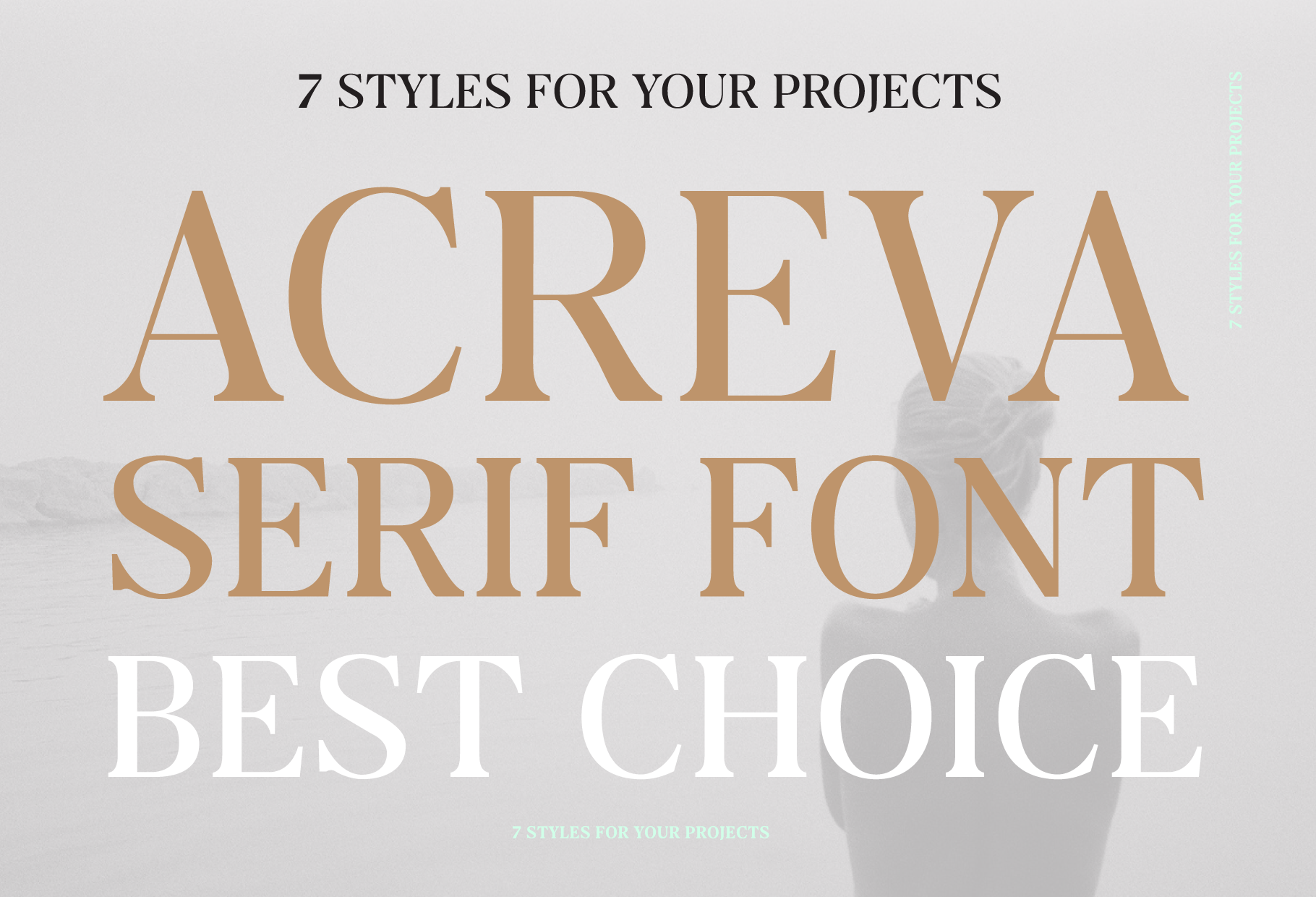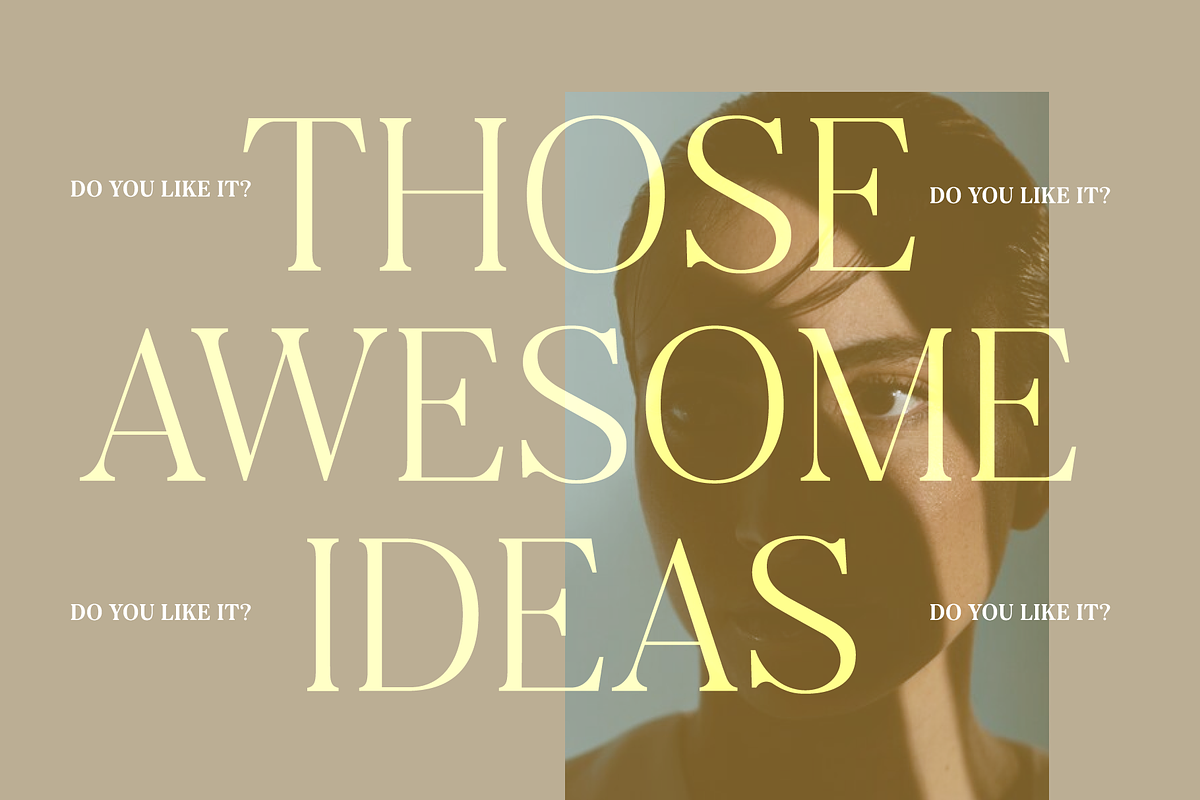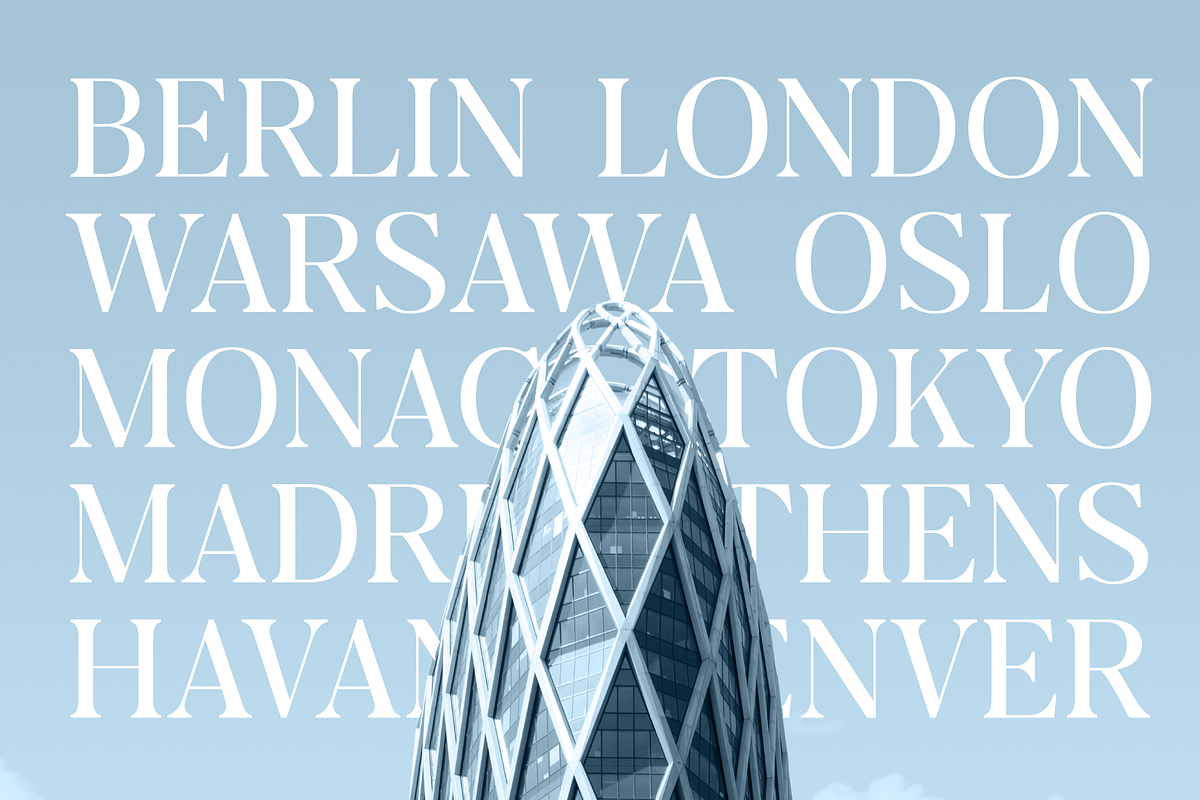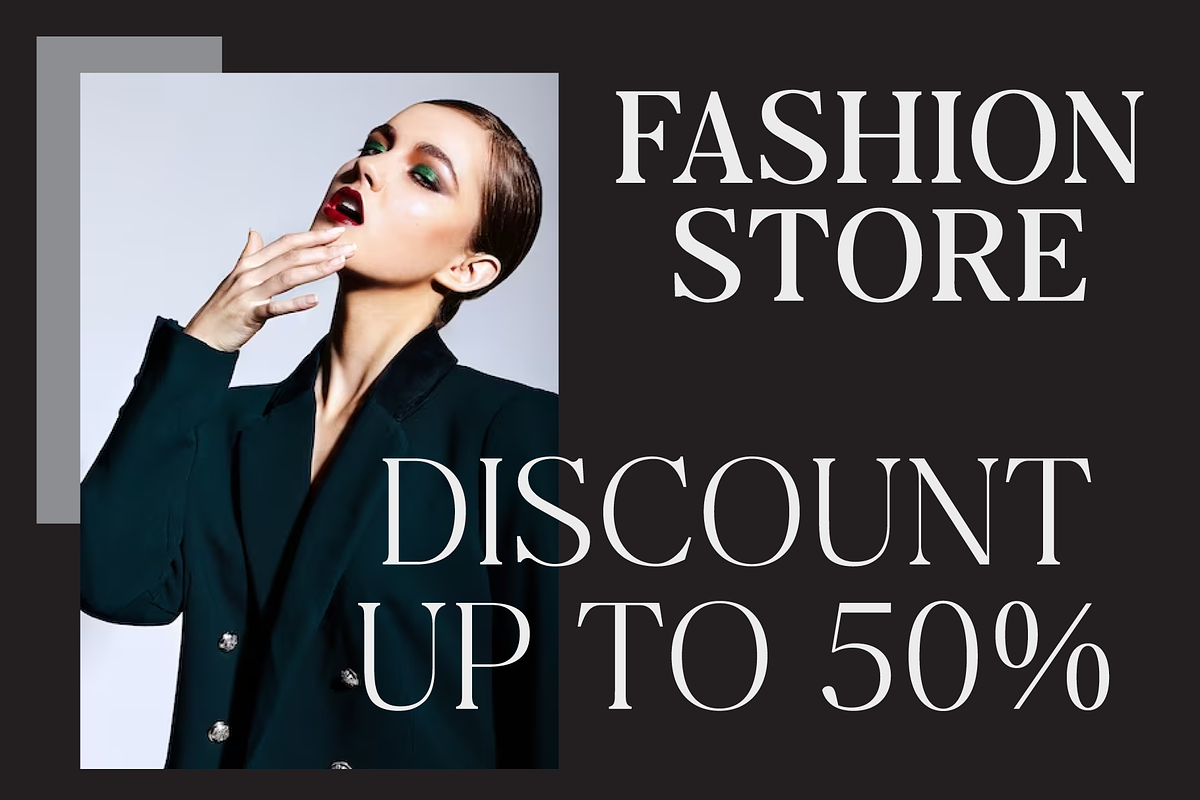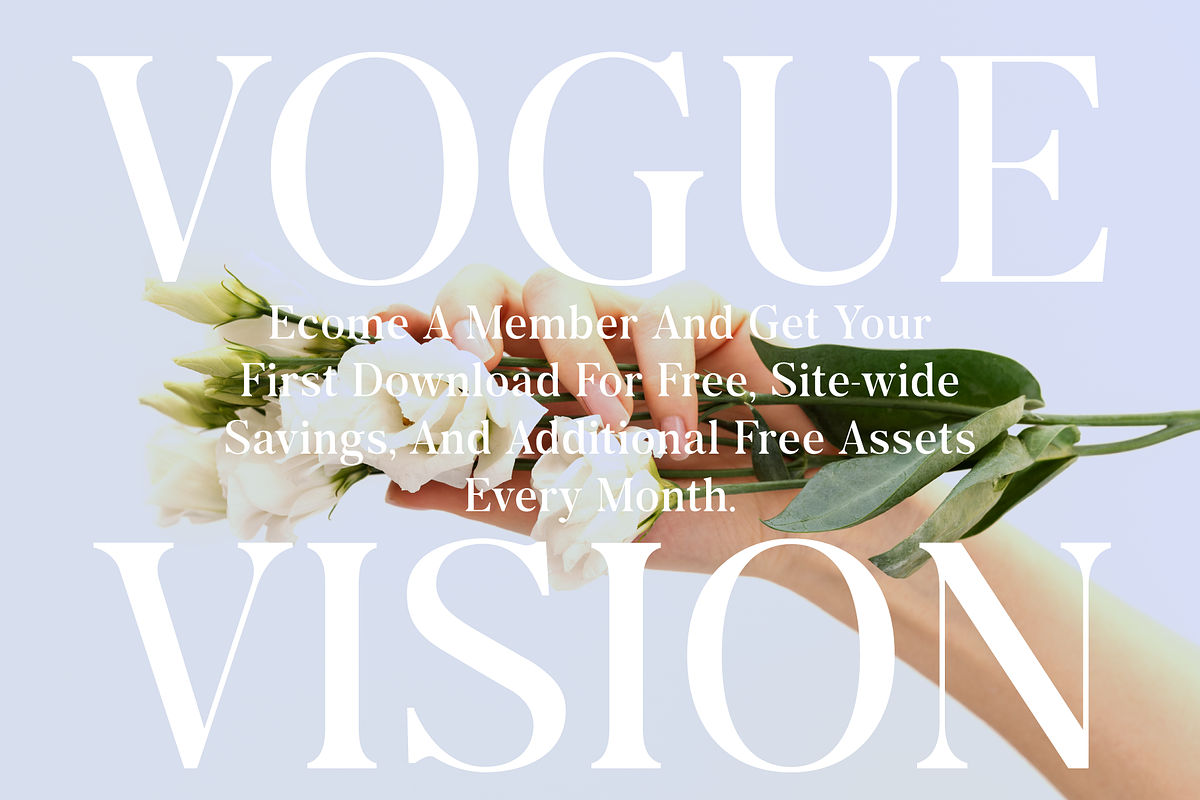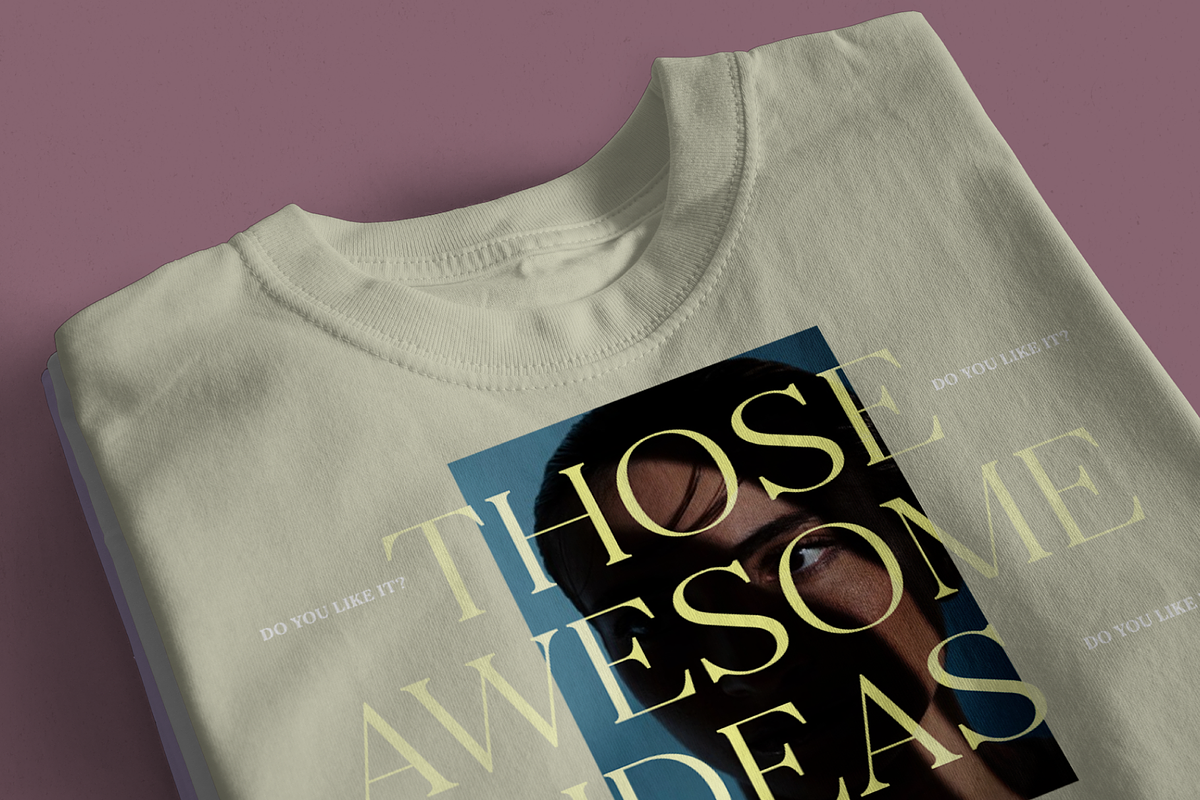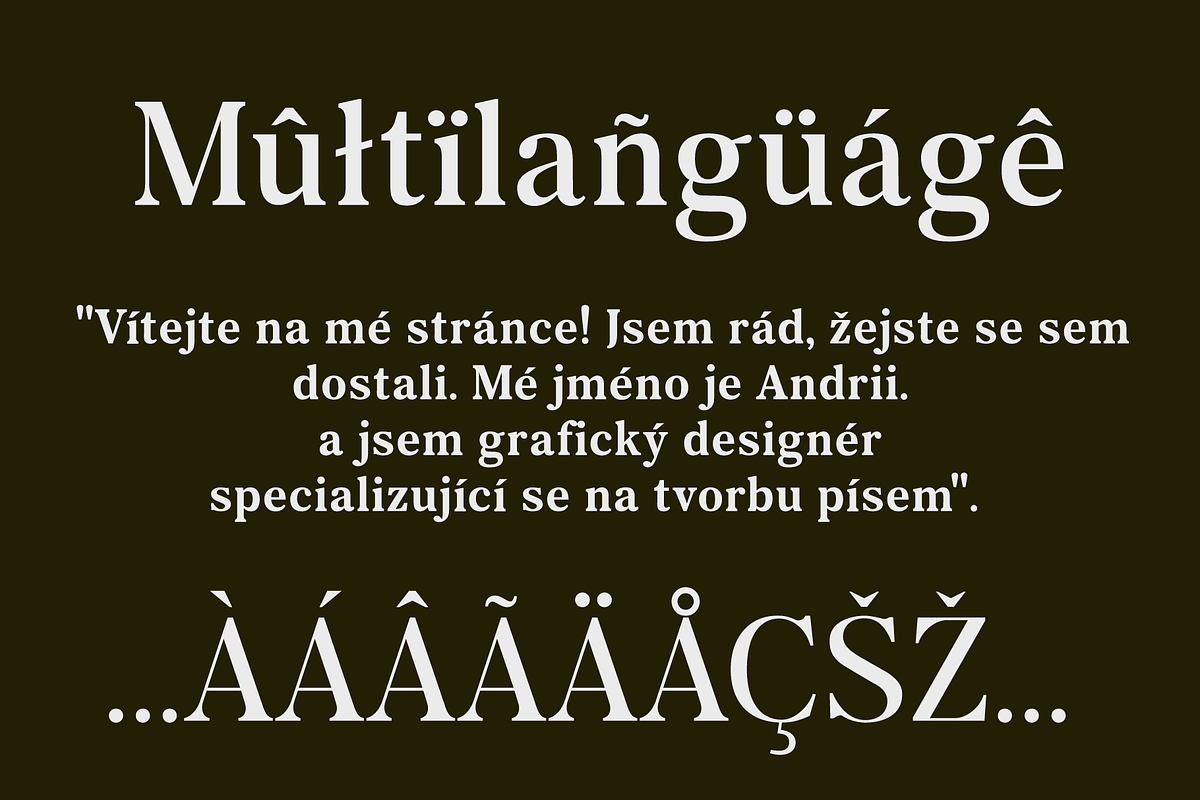
Acreva: Universal Serif Font
Acreva: Timeless Elegance in Every Character. Acreva is like perfume for the office, this font should be attractive to all people.
Classic Modern Beauty: Acreva's serif design exudes timeless sophistication.
Versatile Charm: Perfect for any project, from branding to editorial layouts.
Easy to Read: Clear letterforms ensure readability at any size.